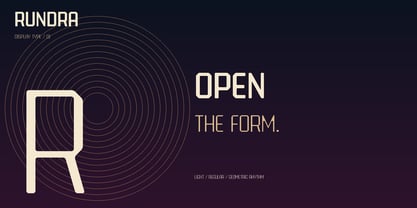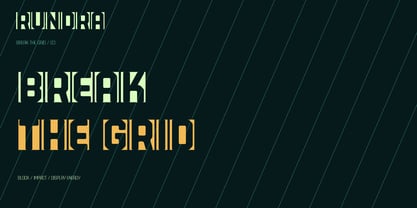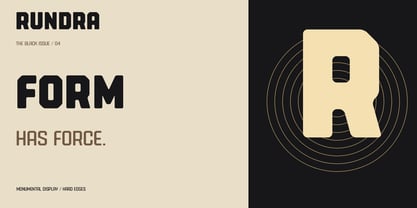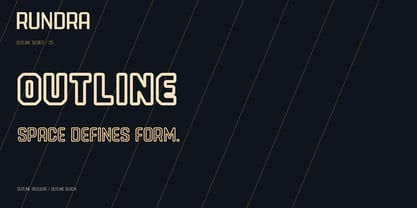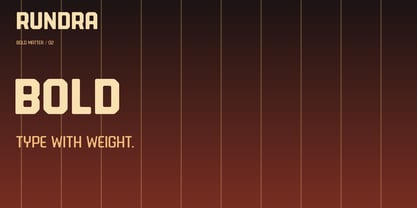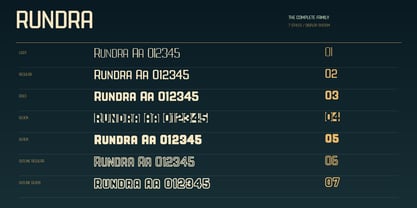
Rundra
The Rundra Font Family was designed by Mehmet Dogan and published by MD-Type. Rundra contains 7 styles and family package options. More about this family
Rundra is a bold rounded display typeface designed for expressive headlines, branding and visual communication. Its soft corners, strong proportions and distinctive geometric details create a friendly yet confident personality.
The family includes Regular, Light, Bold, Black and Block styles, complemented by Outline and Outline Black cuts. The filled styles provide a solid and impactful appearance, while the Outline styles add a lighter, more decorative alternative for posters, logos and display compositions.
Rundra is suitable for branding, packaging, posters, editorial headlines, social media graphics, merchandise, game titles and creative campaigns. Light works well for elegant compositions and supporting text, Regular offers a balanced everyday display style, Bold and Black deliver strong visual impact, and Block creates a more graphic and playful expression.
The Outline styles are designed for layered typography, decorative layouts and eye-catching title treatments. With its combination of rounded forms and bold display character, Rundra brings warmth, clarity and personality to contemporary design.